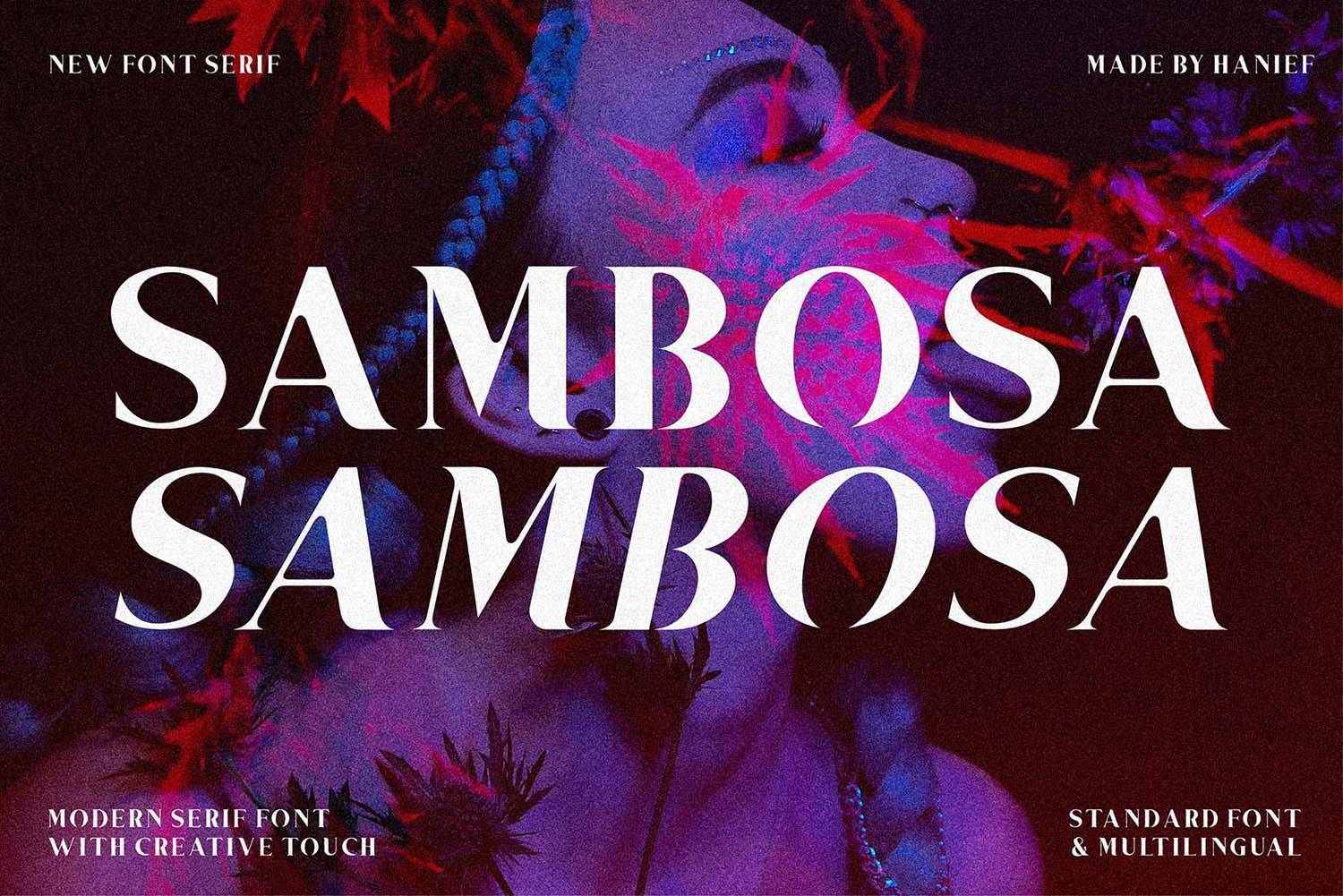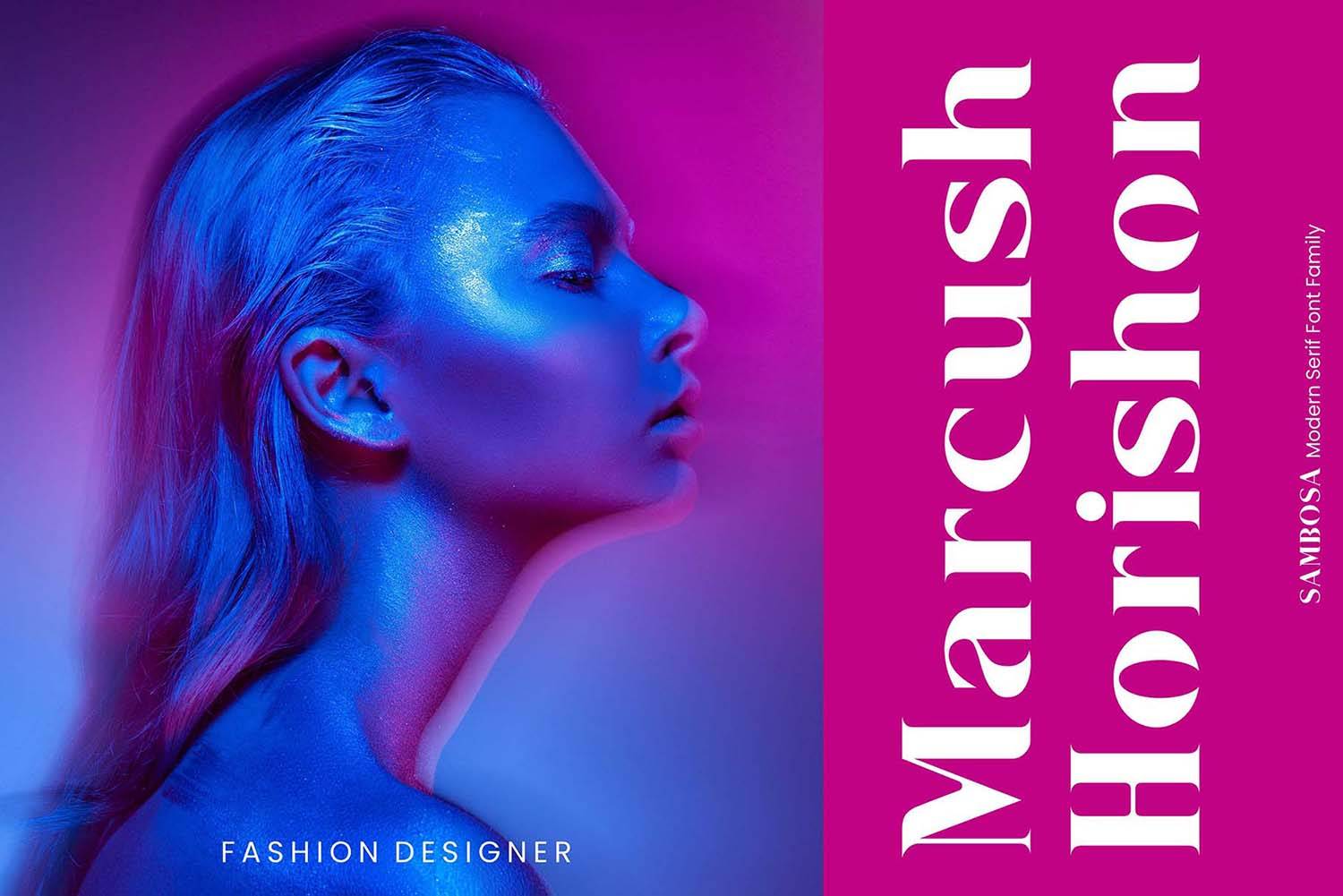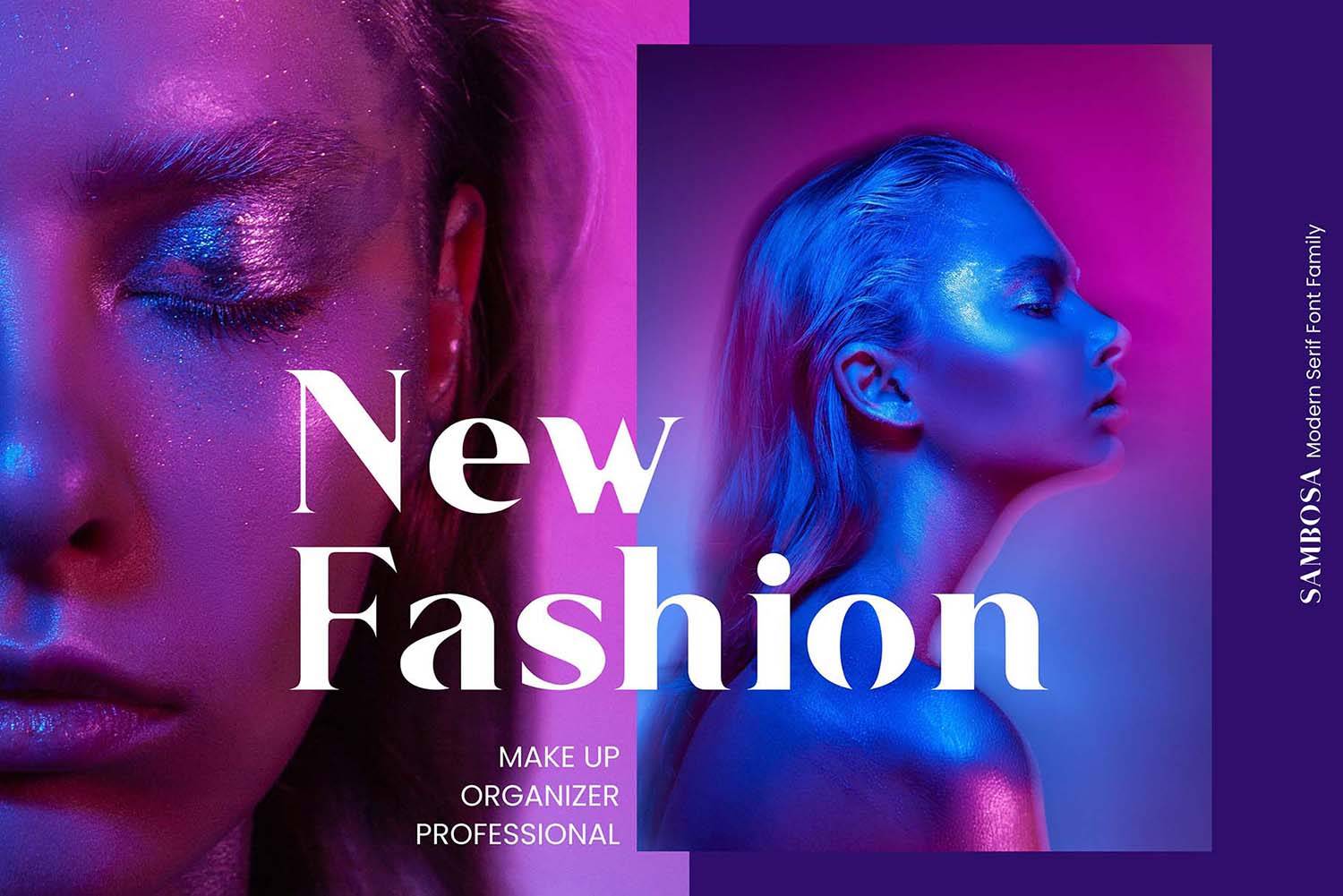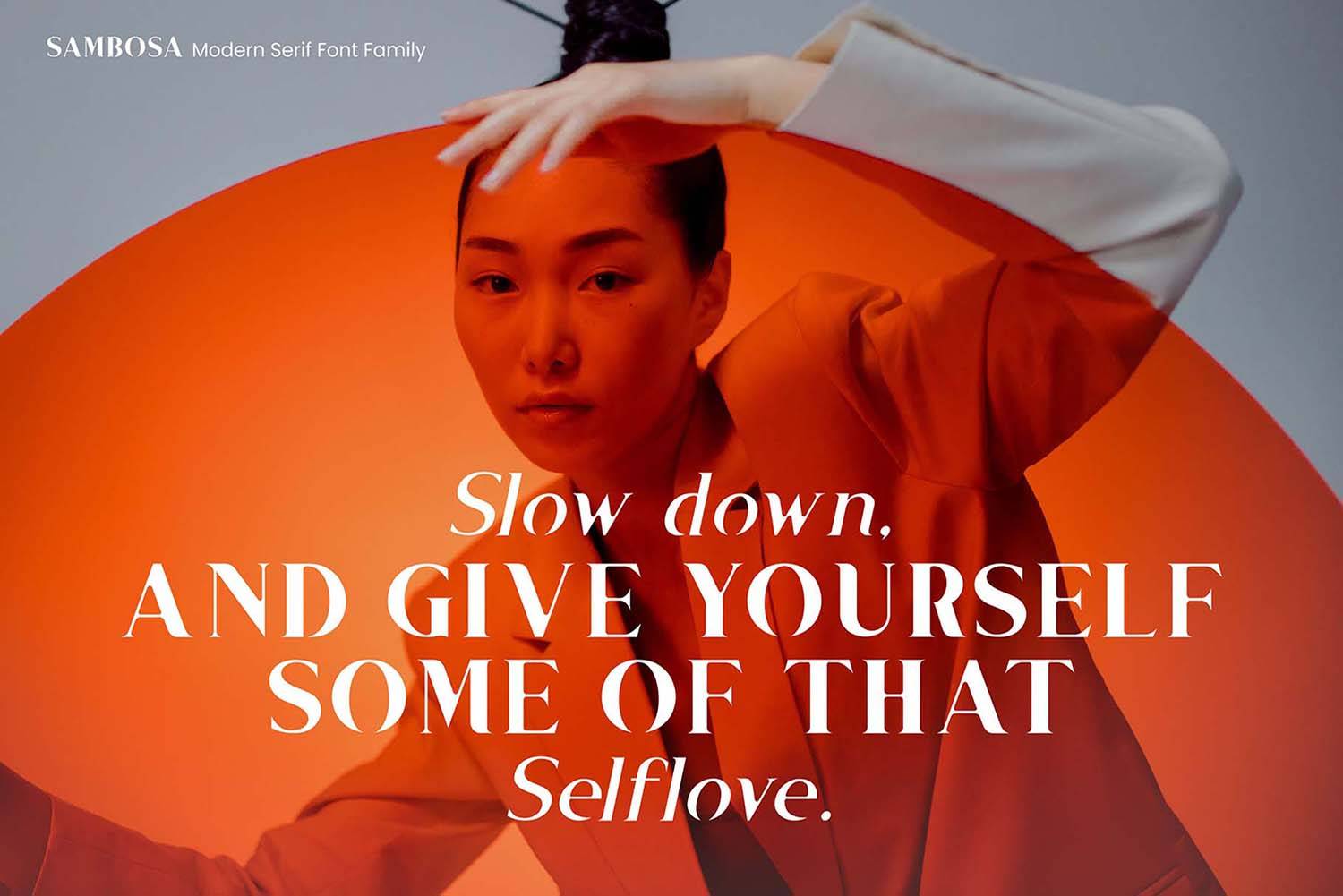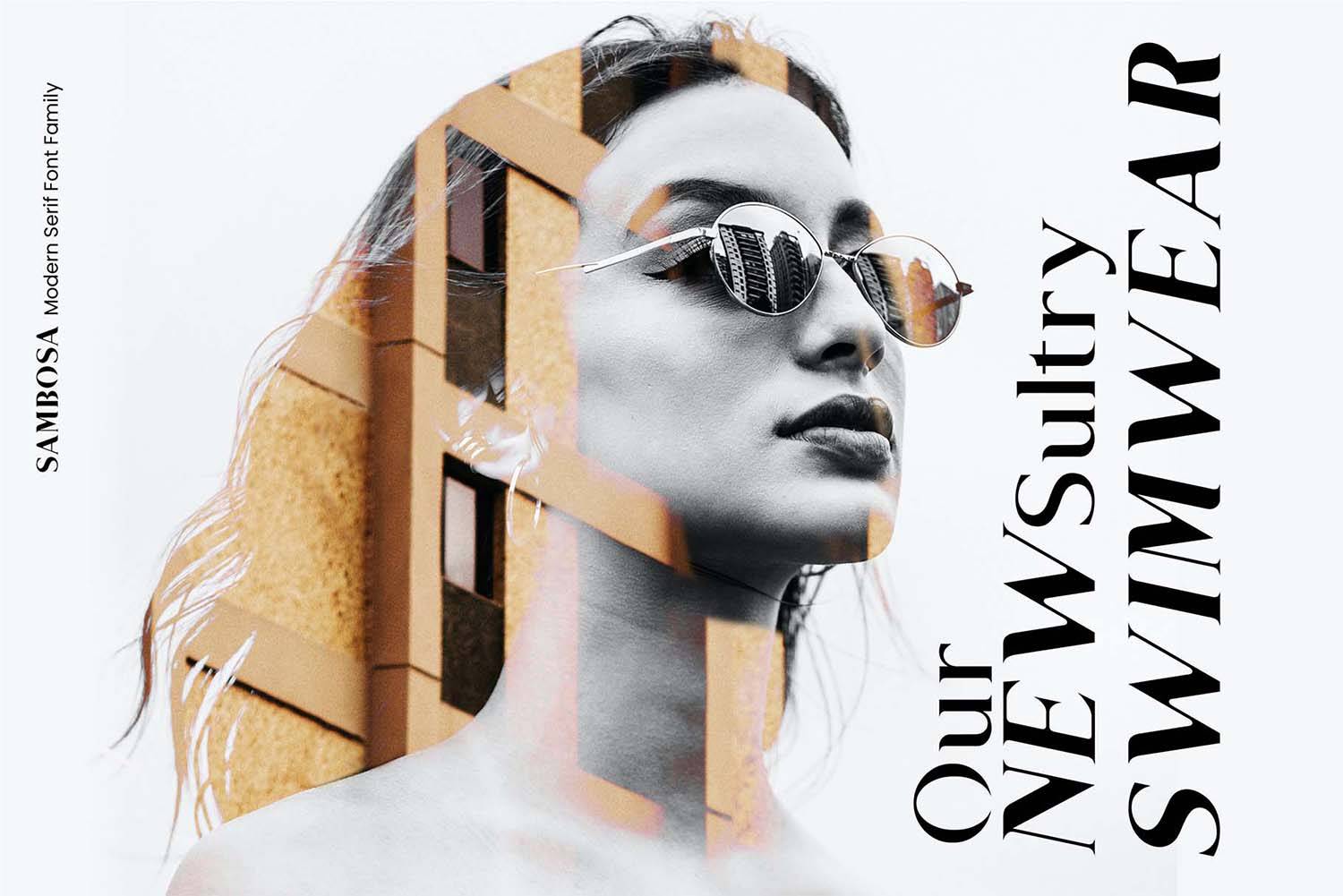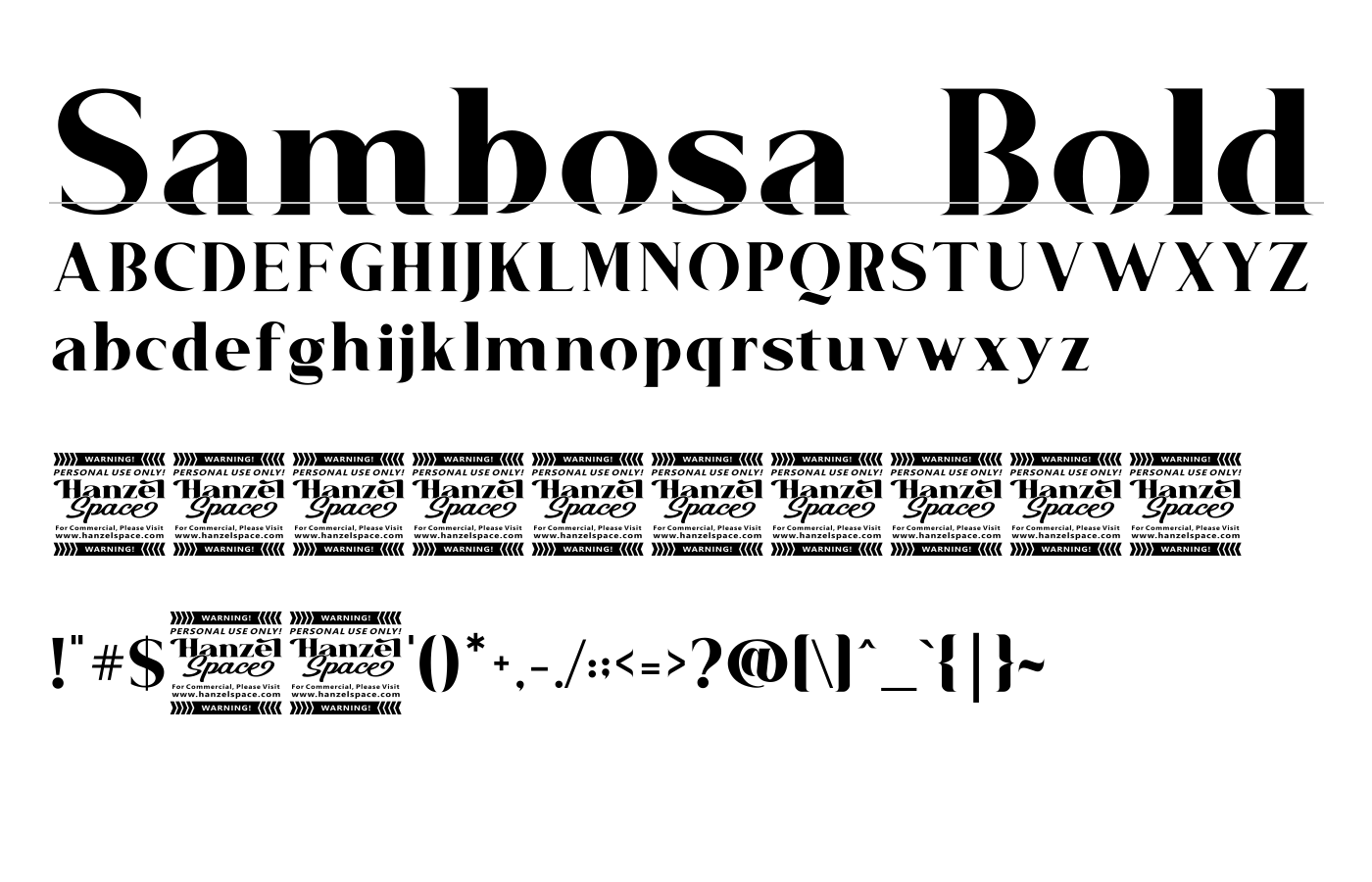
Sambosa Bold is an elegant serif font with a strong presence, featuring high contrast between thick and thin strokes and distinctive bracketed serifs. Its classic yet bold style, combined with a moderate x-height and refined curves, gives it a sophisticated and timeless feel, making it perfect for luxury branding, editorial headlines, and impactful logo designs. This font excels in contexts where a blend of tradition and boldness is desired, adding a touch of elegance and authority.
Sambosa Font
About Sambosa Font
| Font family | Sambosa Font |
| Designer | Hanief Farandi |